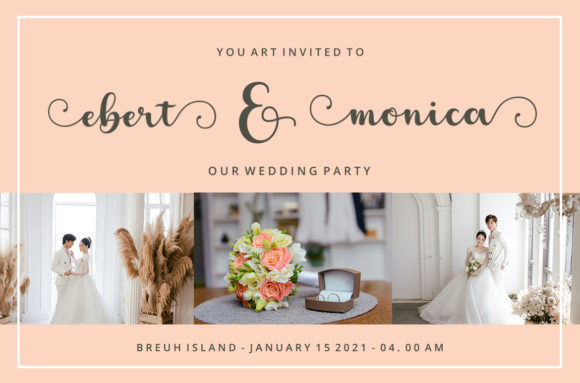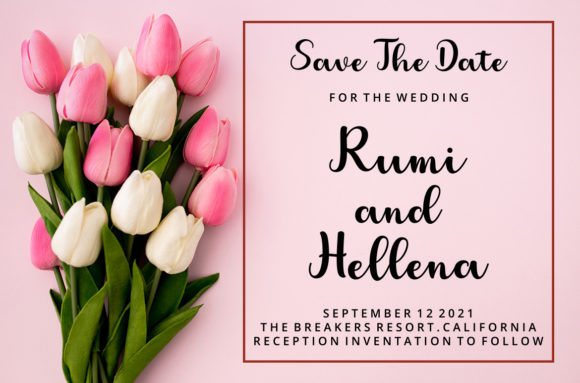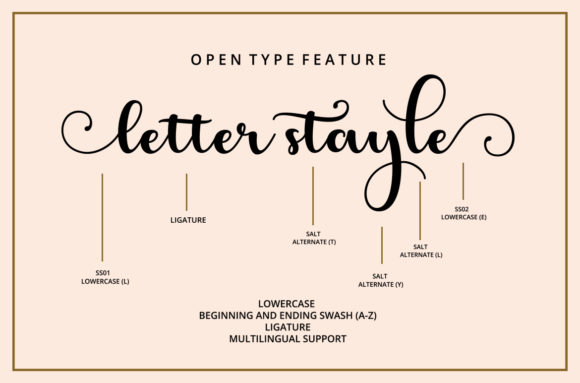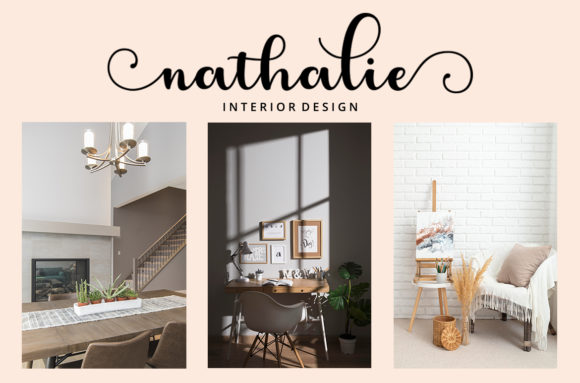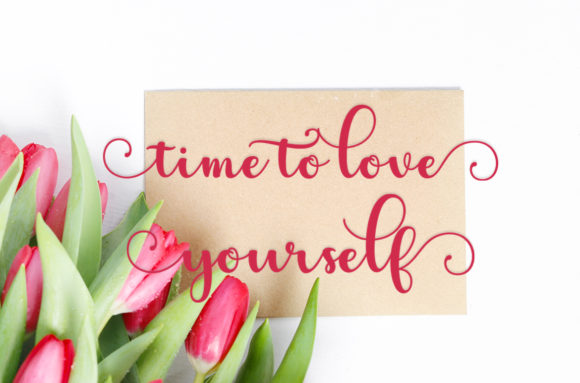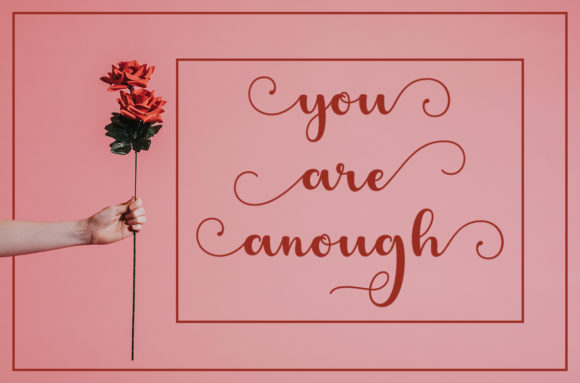
Introduction to Mainstay Font
There’s nothing quite like the feeling of staring at a blank canvas, waiting for inspiration to strike. The cursor blinks, taunting you with possibilities. You need a design resource that sparks creativity, and the right font can make all the difference. That’s where the Mainstay Font comes in – a fresh, unique script that adds a carefree attitude and a playful edge to any project.
Whether you’re working on a logo, invitation, or social media post, the Mainstay Font is the perfect addition to your design toolkit. Its large selection of natural-looking ligatures makes it easy to create a cohesive look, and its PUA encoding means you can access all the glyphs and swashes with ease. This high-quality font is a must-have for any designer looking to add a little whimsy to their creative project.
Key Features of Mainstay Font
- Mainstay Font is a high-quality design resource, perfect for various creative projects.
- The font is available in 6 different weights, ranging from Light to Bold, providing ample options for designers to choose from.
Honest Review: Mainstay Font
As a designer, I’m always on the lookout for high-quality design resources that can elevate my creative projects. Recently, I had the chance to work with the Mainstay Font, and I’m excited to share my honest review with you.
What works well: ✨ The Mainstay Font is incredibly versatile and suitable for a wide range of design projects, from logos and branding to web design and print materials. Its modern and clean design aesthetic makes it a great choice for creative professionals looking for a high-quality font that can help them stand out. Additionally, the font is available for free download, making it an excellent resource for designers on a budget.
- High-quality design aesthetic
- Suitable for a wide range of design projects
Any limitations: ⚠️ While the Mainstay Font is a great addition to any designer’s toolkit, it may not be suitable for all design projects. The font’s modern aesthetic may not be the best fit for more traditional or vintage-inspired designs. Additionally, some users may find the font’s weight and line height to be a bit inconsistent.
Overall impression: I’m impressed with the Mainstay Font’s quality and versatility. While it may have some limitations, it’s an excellent resource for designers looking for a high-quality font that can help them create stunning designs. Whether you’re working on a logo, branding project, or web design, the Mainstay Font is definitely worth considering.
Tips for Getting the Most Out of Mainstay Font
Use the Mainstay Font consistently throughout your design to create a cohesive look and feel. Experiment with different font sizes and styles to add visual interest to your design. The Mainstay Font is a high-quality design resource that can elevate your creative project and make it stand out.
The Mainstay Font is suitable for a variety of creative projects, including presentations, documents, websites, and social media graphics. Its high-quality design and transparent background make it an ideal choice for designers who want to add a professional touch to their work.